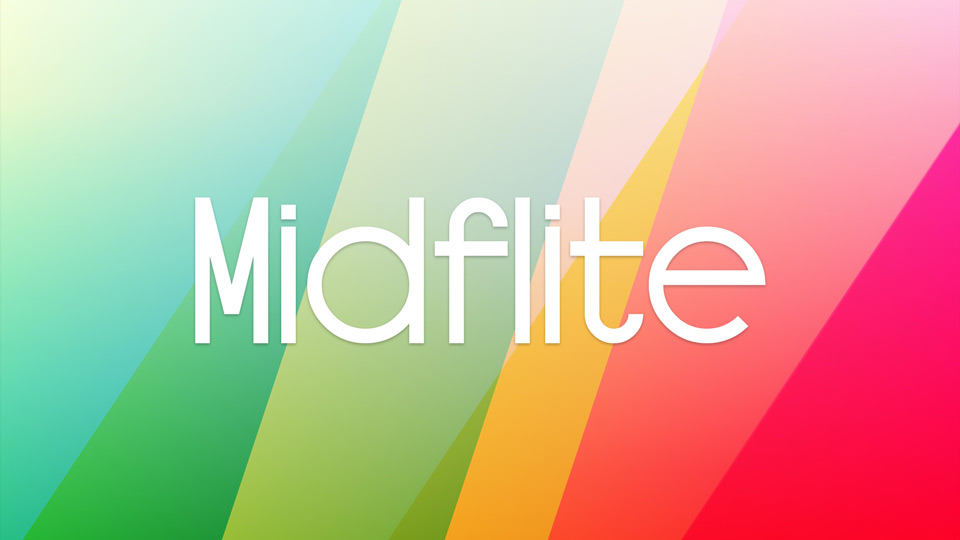
Download Midflite font, a Bauhaus/Art Deco inspired sans serif typeface with pure geometric forms and clean, simple lines. With its vintage vibe Midflite font is perfect for posters, ads, headlines and any display use.